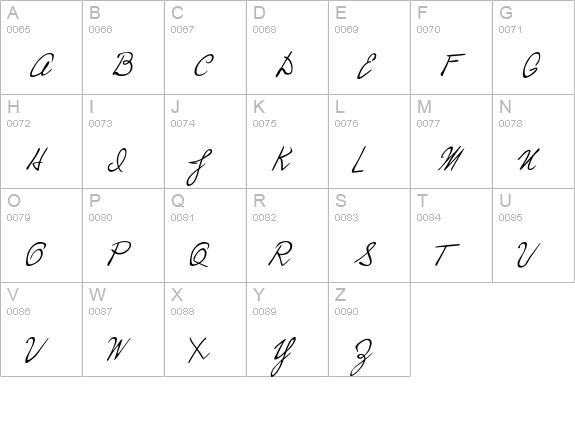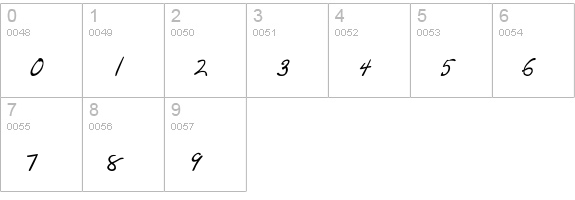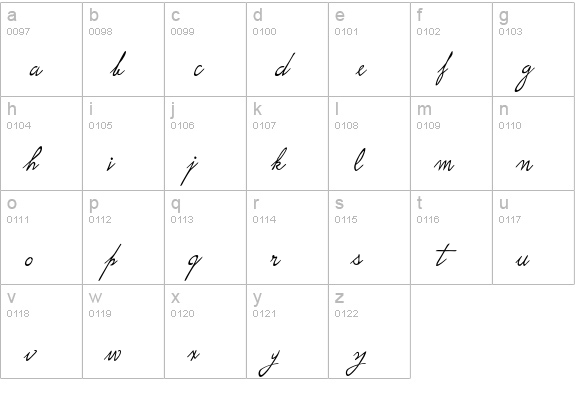
P22Hopper-Edward Font Details
P22Hopper-Edward font is a perfect blend of elegance and sophistication. This unique typeface captures the essence of Edward Hopper's iconic artworks, evoking a sense of nostalgia and timeless beauty. The clean lines and graceful curves of each letter create a harmonious composition that is both visually pleasing and highly legible. Designed with meticulous attention to detail, P22Hopper-Edward font brings a touch of artistic flair to any project. Whether used in print or digital media, this font adds a touch of class and refinement, elevating the overall aesthetic appeal. But what truly sets P22Hopper-Edward font apart is that it is freely available to download at FontsMarket.com. This means that you can access and use this exquisite font for any personal or commercial project without any cost. With just a few clicks, you can enhance your designs with the timeless beauty of P22Hopper-Edward font. Whether it's creating captivating headlines, designing elegant invitations, or adding a touch of sophistication to your branding, P22Hopper-Edward font is the perfect choice. Its versatility allows it to seamlessly adapt to different design styles, making it a valuable asset for any creative endeavor. So, why wait? Visit FontsMarket.com today and download P22Hopper-Edward font for free. Experience the beauty and charm of this exceptional typeface and let it elevate your designs to new heights.